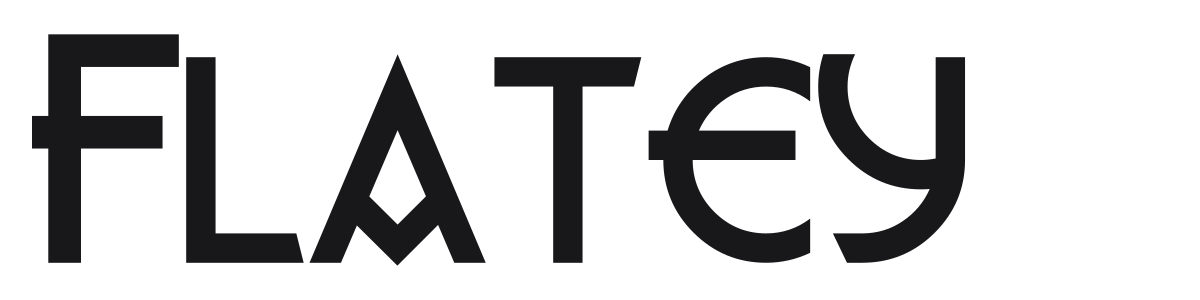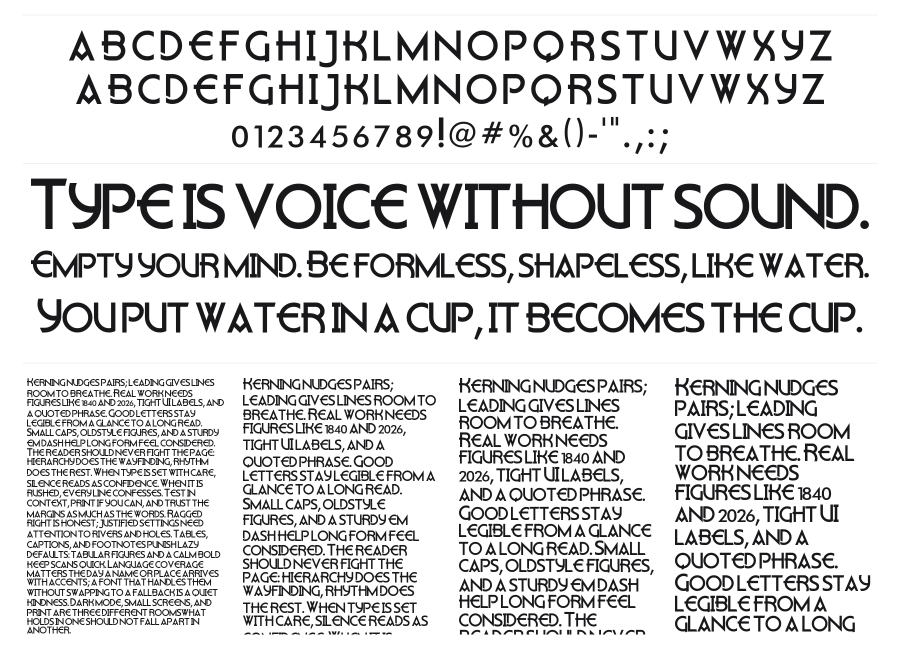
Flatey
by Sanguinus Curae · Website
Flatey is a bold geometric sans with flat-topped arches and angular construction rooted in Art Deco modernism. Where other geometric faces use curves, Flatey cuts them into straight horizontal strokes, giving each character a rigid, architectural authority. It suits titles, posters, and branding that need presence without ornamentation.